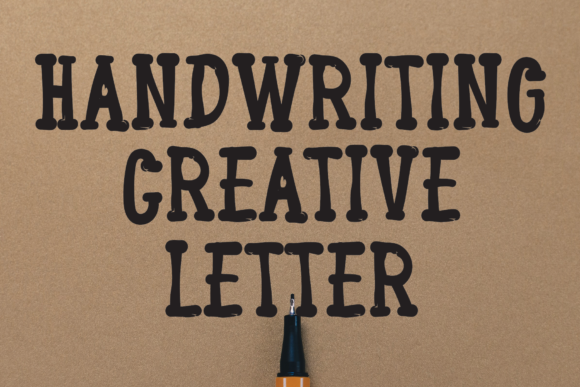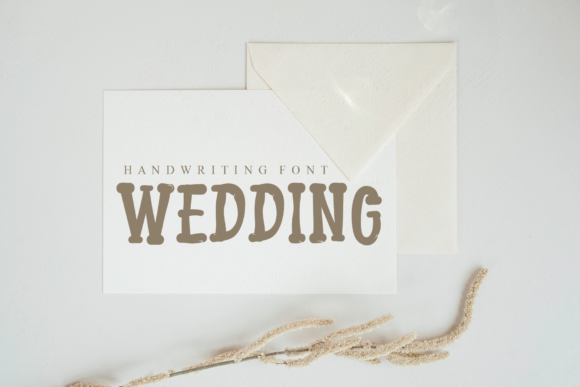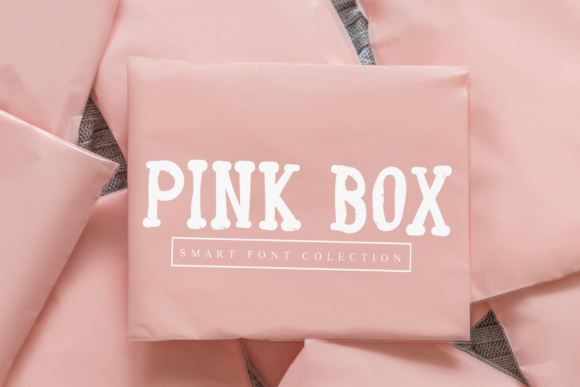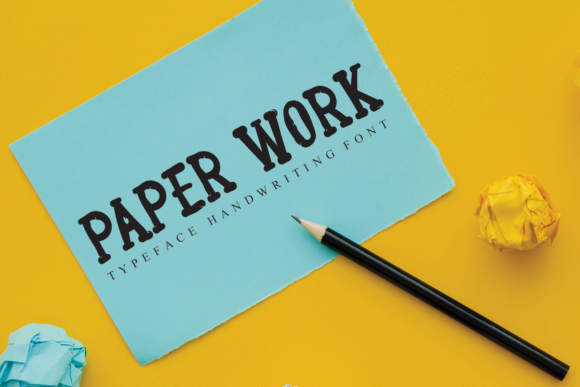
Introduction to Close Friend Font
Close Friend is a sweet, joyful and quirky display font.
This font is perfect for children themed designs, especially when combined with bright colors .
Key Features of Close Friend Font